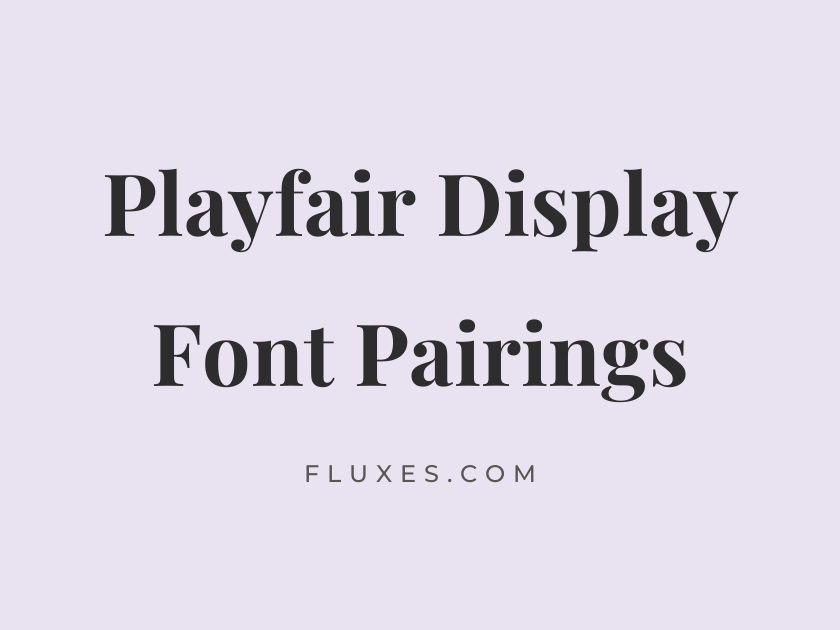
10 Best Font Pairings for Playfair Display
ARTICLE TITLE: Best Font Pairings for Playfair Display
Playfair Display remains one of the most requested Google Fonts for editorial and luxury branding work, thanks to its sharp contrast between thick and thin strokes and its unmistakable high-fashion feel. Because it carries so much personality on its own, the real skill in font pairing is choosing a body or companion typeface with enough restraint to let those elegant curves and dramatic serifs breathe. The combinations below cover a range of moods, from crisp and modern to soft and romantic, so you can match the pairing to the project rather than forcing one look everywhere.
1. Playfair Display + Open Sans
Timeless Elegance Restored
A clean, humanist body face that keeps long passages easy to read.
Open Sans has an even, workmanlike structure that disappears into the background, which is exactly what Playfair Display needs beside it. The heading gets to carry all the drama while the body text stays legible and unobtrusive at small sizes. This pairing suits magazine layouts, wedding invitations, and editorial websites where readability matters as much as style.
2. Playfair Display + Karla
Stories Worth Telling Well
A grotesque sans with gentle curves that softens the contrast beneath a serif headline.
Karla’s slightly rounded terminals echo the warmth in Playfair Display’s italics without competing with its flourishes. The pairing feels approachable rather than formal, making it a strong choice for lifestyle blogs, boutique product pages, and personal portfolios.
3. Playfair Display + Nunito Sans
Refined Details, Bold Statements
A rounded, low-contrast sans that balances the drama of a high-contrast serif.
Here the appeal is straightforward contrast: Playfair Display’s sharp thick-thin strokes sit against Nunito Sans’s soft, even weight, so each typeface does a job the other cannot. This combination reads as friendly yet upscale, a useful tone for beauty brands and hospitality sites.
4. Playfair Display + Work Sans
Modern Craft, Classic Roots
A tidy, functional grotesque built for interface and body text alike.
Work Sans was designed with screen legibility in mind, and its plain, businesslike letterforms give Playfair Display room to act as the visual anchor of a page. The result feels current and slightly editorial, well suited to design studios and architecture portfolios.
5. Playfair Display + Lato
An Invitation to Read
A warm, semi-rounded sans that has become a dependable workhorse for body copy.
Lato’s humanist warmth keeps this pairing from feeling too austere, which softens Playfair Display’s sharper edges without dulling its impact. It is a dependable, versatile combination for blogs, newsletters, and small business sites that need both polish and approachability.
6. Playfair Display + Mulish
Grace in Every Line
A quiet-natured, low-contrast sans that lets the headline take the spotlight.
Mulish is intentionally understated, with almost no stroke contrast of its own, so it never distracts from Playfair Display’s ornamental serifs. This pairing works well for bridal and event branding, where the heading needs to feel special and the supporting text should stay out of the way.
7. Montserrat + Playfair Display
Bold Headlines, Classic Text
Body copy set in an elegant serif brings a literary tone to shorter passages.
Flipping the usual roles, a geometric sans like Montserrat up top and Playfair Display set smaller for body text creates a fashion-editorial effect that feels intentional rather than accidental. This works best for short blocks of copy, pull quotes, or introductory paragraphs rather than long-form reading.
8. Playfair Display + PT Sans
Heritage Meets Precision
A sturdy, no-nonsense sans with excellent legibility at small sizes.
PT Sans brings a slightly technical, grounded quality that contrasts nicely with Playfair Display’s ornate character, giving the pairing a sense of credibility. It suits financial services, law firms, and other brands that want a touch of classic elegance without losing authority.
9. Raleway + Playfair Display
Sophistication, Simply Stated
A serif body face adds literary warmth to shorter editorial passages.
Raleway’s tall x-height and thin, elegant strokes share a similar refinement with Playfair Display, so even when the roles are reversed the pairing still feels cohesive. This combination works nicely for pull quotes, About pages, and other short-form editorial content.
10. Playfair Display + Cabin
Poised, Polished, Personal
A humanist sans with a friendly, slightly condensed rhythm for body text.
Tips for pairing Playfair Display
Keep body text sans-serif in most cases; Playfair Display’s contrast is dramatic enough that a second serif can feel heavy unless it is much simpler in structure.
Use Playfair Display’s italic sparingly for pull quotes or subheadings, since its calligraphic swashes are the most distinctive part of the family.
Test pairings at your actual heading and body sizes; a combination that looks balanced at 38px can feel mismatched once the heading is enlarged for a hero section.